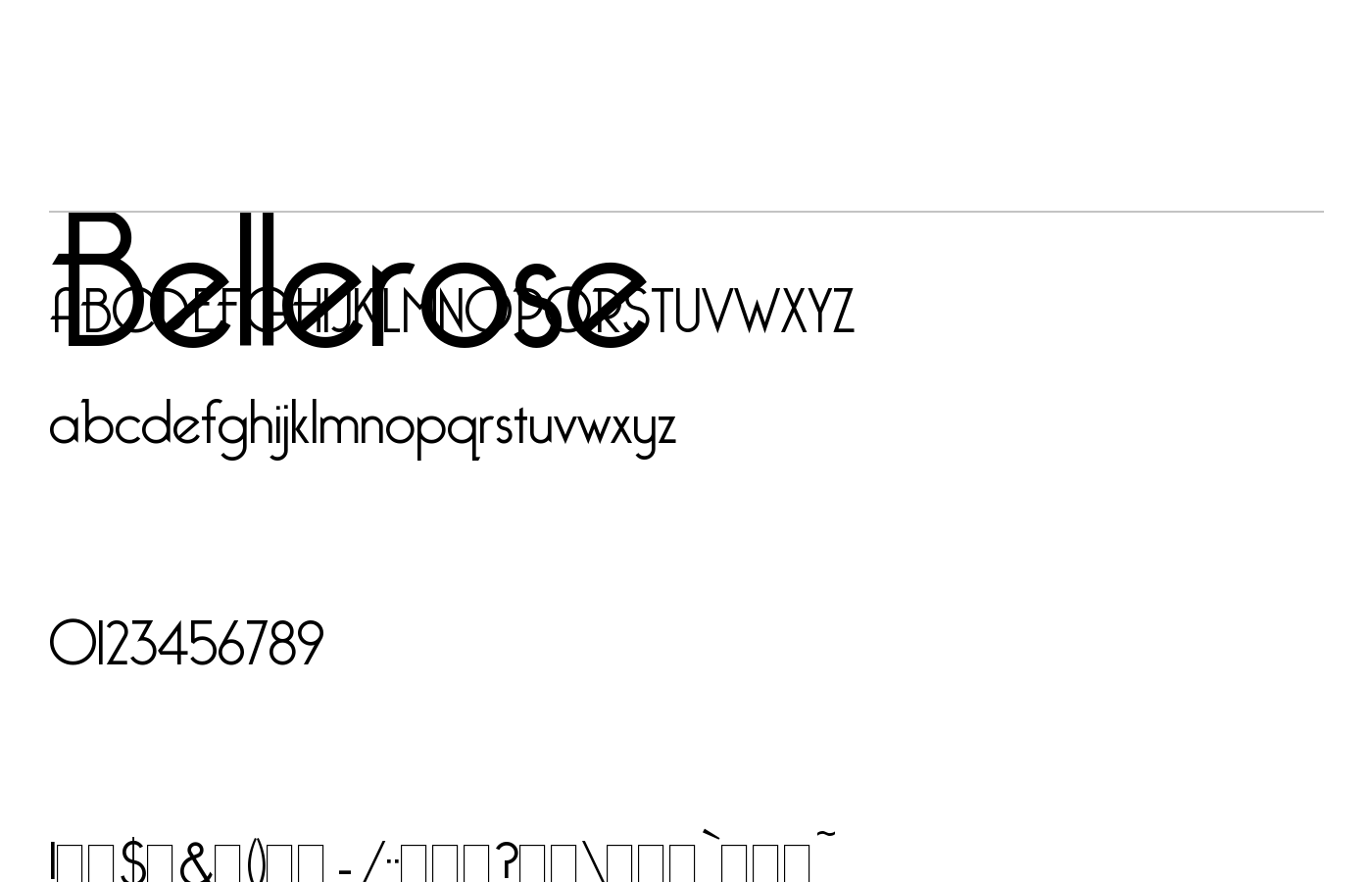
Bellerose is a sleek and modern sans serif font characterized by its thin strokes, high contrast, and geometric letterforms. Its tall, elegant structure with clean curves and open counters gives it a refined and sophisticated feel, ideal for contemporary branding, editorial design, and stylish headlines. This font works well where a minimalist yet distinctive look is desired to convey luxury and modernity.
Bellerose Font
About Bellerose Font